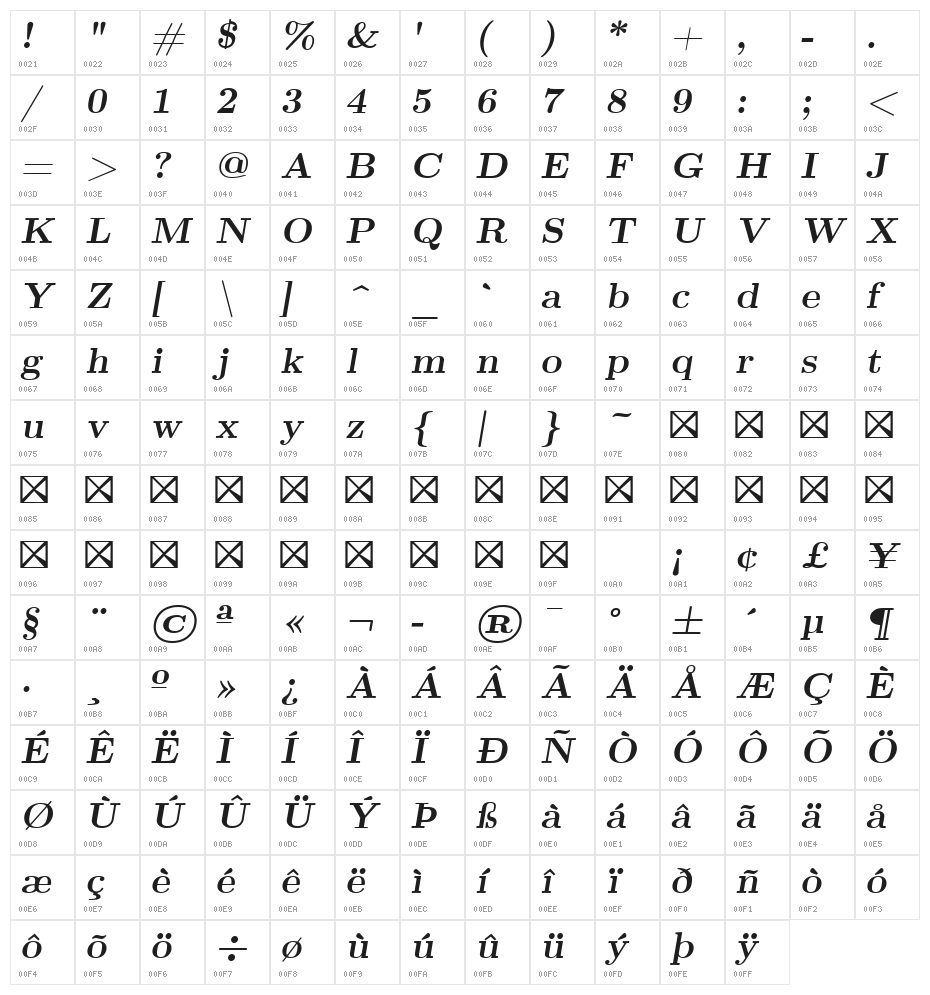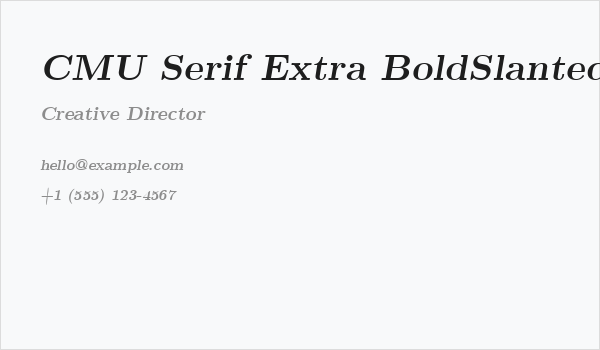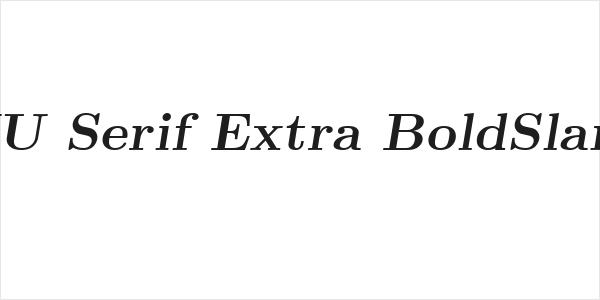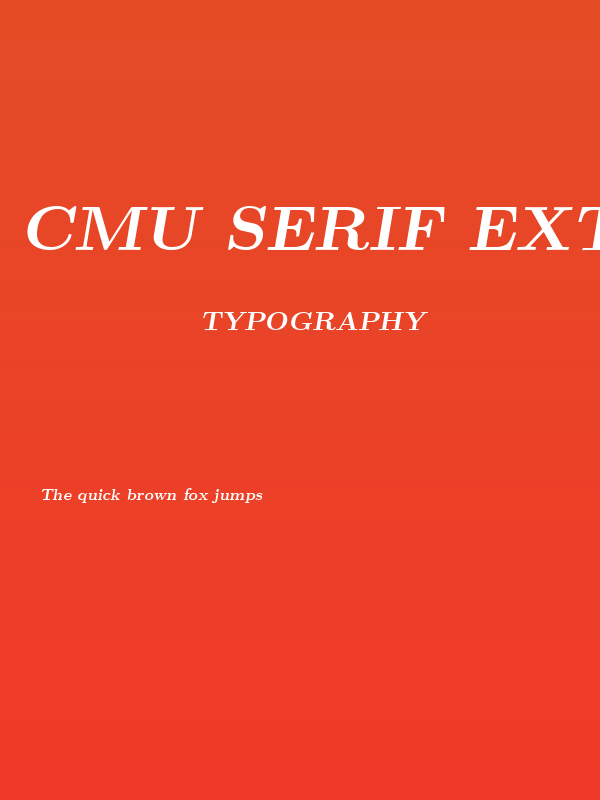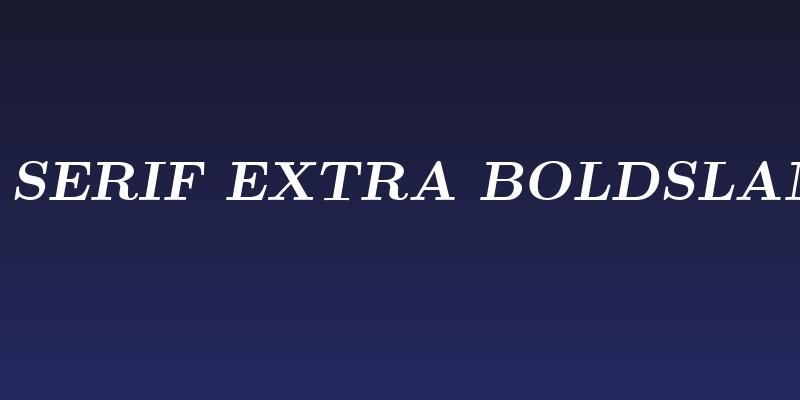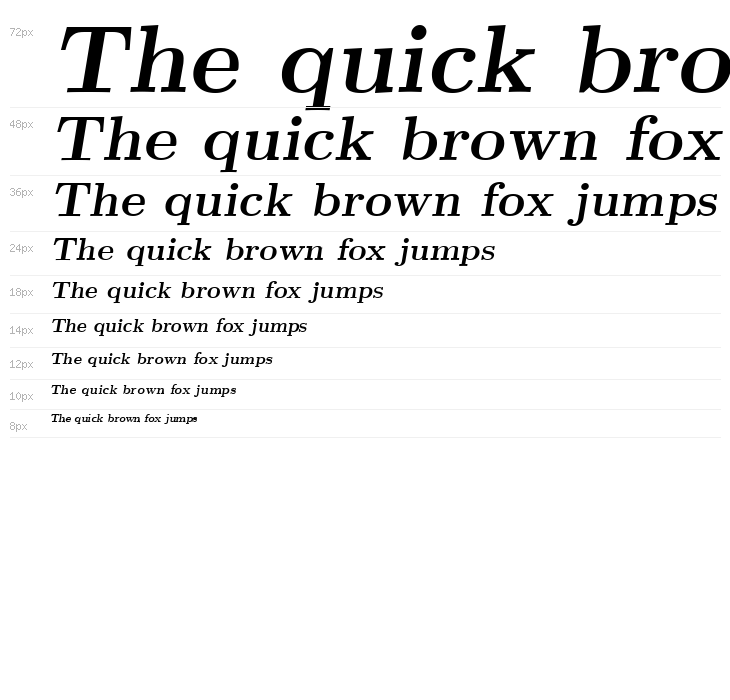
CMU Serif Extra BoldSlanted Font
CMU Serif Extra BoldSlanted Description
This typeface features a classic serif design with an extra bold weight, providing a strong and authoritative presence. The slanted style adds a dynamic and elegant touch, making it suitable for both formal and creative applications. The characters are well-defined with sharp serifs and a consistent stroke width, ensuring readability and impact. The numerals and special characters maintain the same bold and slanted characteristics, offering a cohesive look across all text elements.
| Proposed Projects | Ideal for book covers, editorial headlines, branding materials, and formal invitations. |